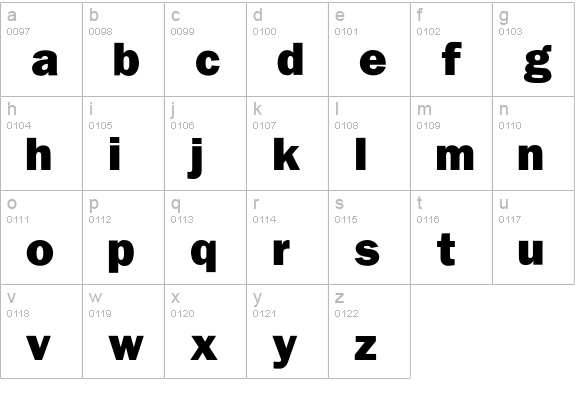
FranklinHeavy Font Details
FranklinHeavy is a robust and bold typeface that exudes strength and authority. With its thick and powerful letterforms, this font commands attention and makes a bold statement in any design project. Ideal for headlines, titles, and other prominent text, FranklinHeavy is a versatile font that can be used across a variety of applications. The best part? FranklinHeavy is available for free download at FontsMarket.com. Whether you're working on a branding project, poster design, or any other creative endeavor, this font is sure to make a lasting impression. Download FranklinHeavy today and add a touch of strength and boldness to your designs.